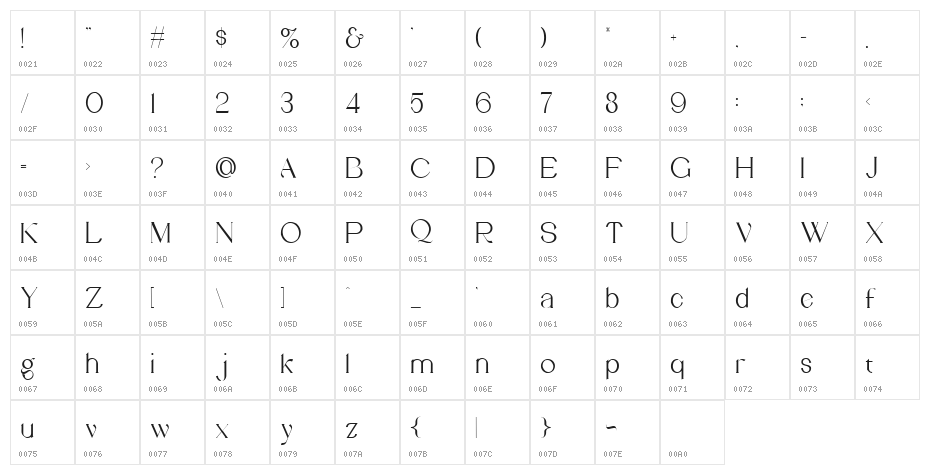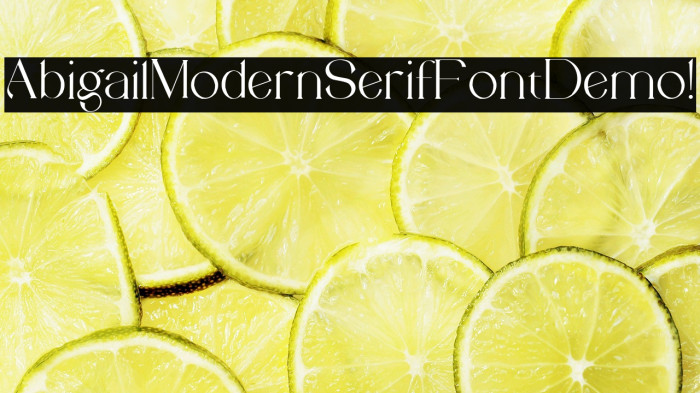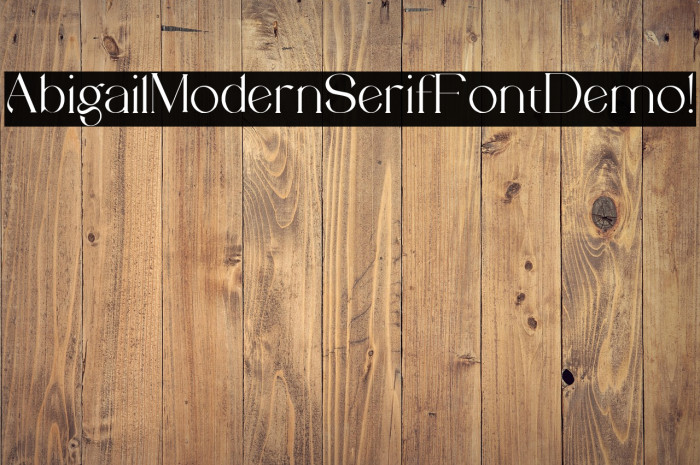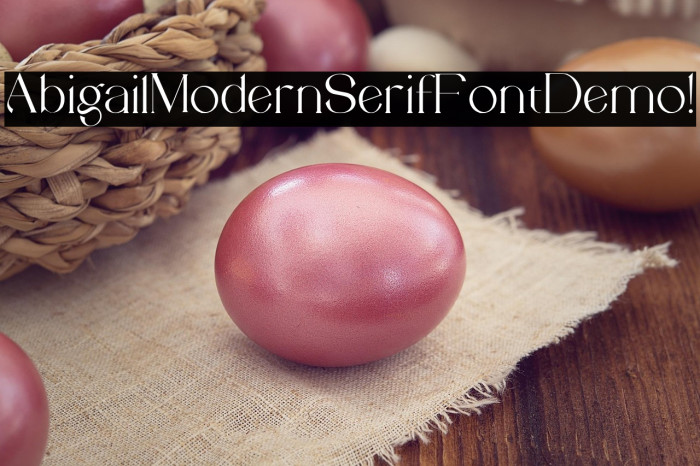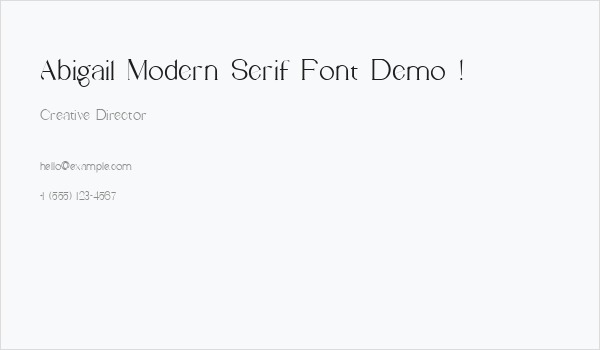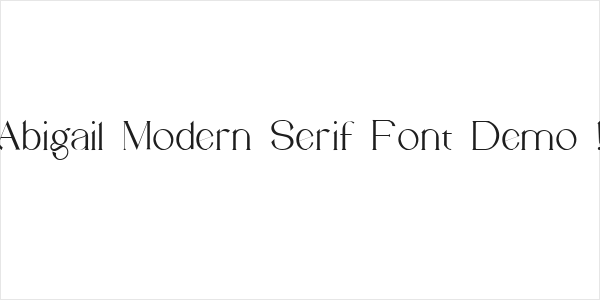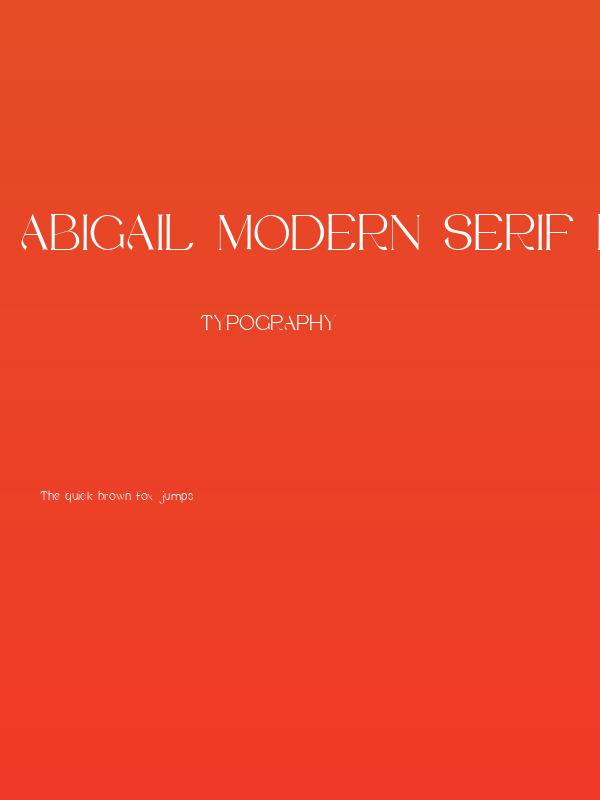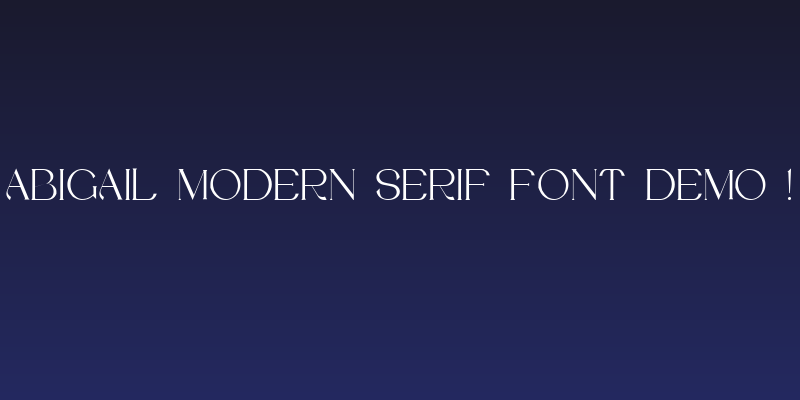
Abigail Modern Serif Font Demo ! Font
Abigail Modern Serif Font Demo ! Description
This font features a modern serif style with elegant, thin strokes and high contrast between thick and thin lines. The uppercase letters are distinct with sharp serifs and a clean, sophisticated appearance. The lowercase letters maintain a consistent style, offering a harmonious blend of curves and angles. Numbers are well-proportioned, matching the overall aesthetic of the font. Special characters are designed with the same attention to detail, ensuring versatility and coherence across different uses. The font's refined and stylish look makes it suitable for a variety of design projects.
| Proposed Projects | Ideal for branding, editorial design, luxury packaging, and wedding invitations. |